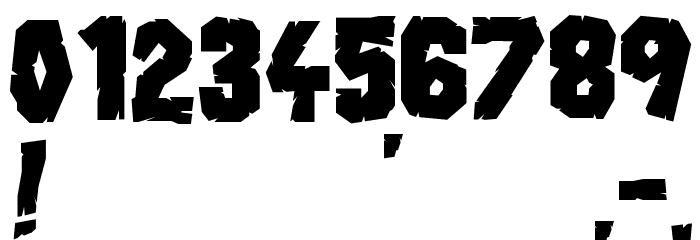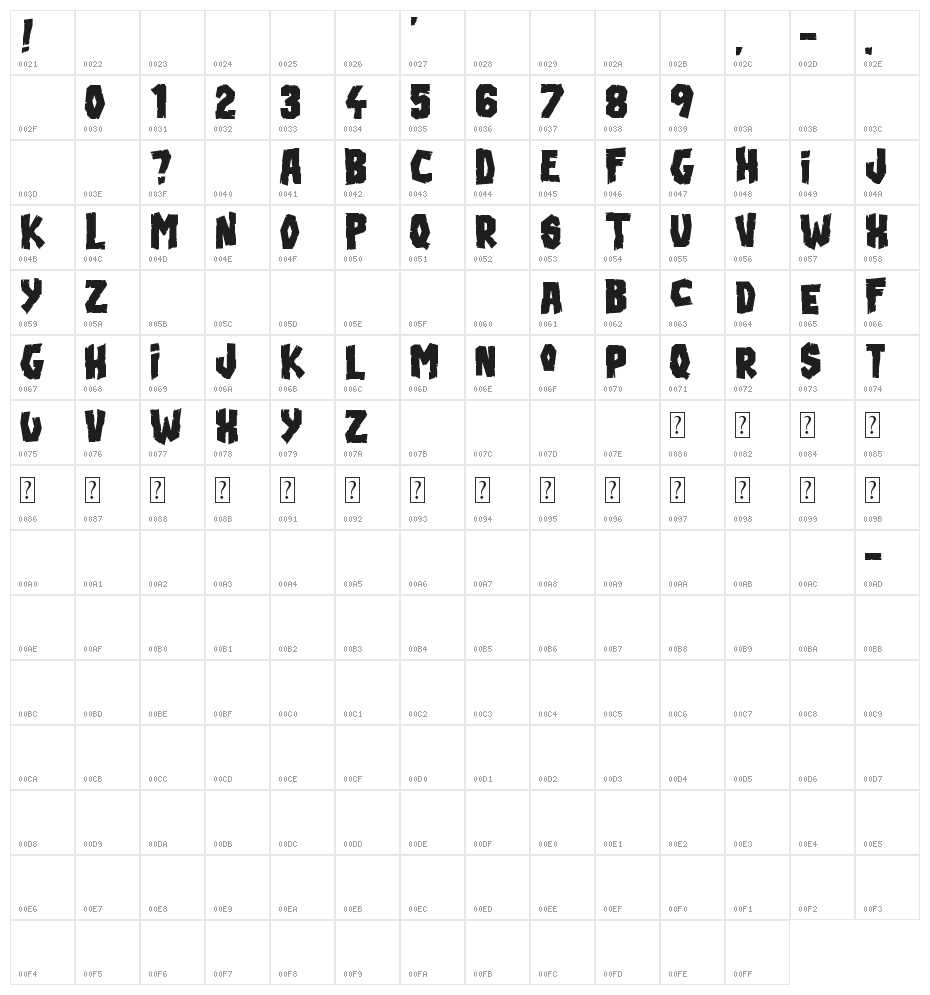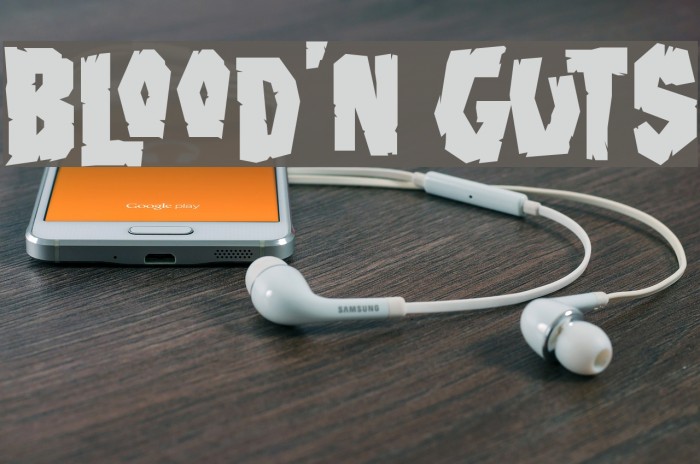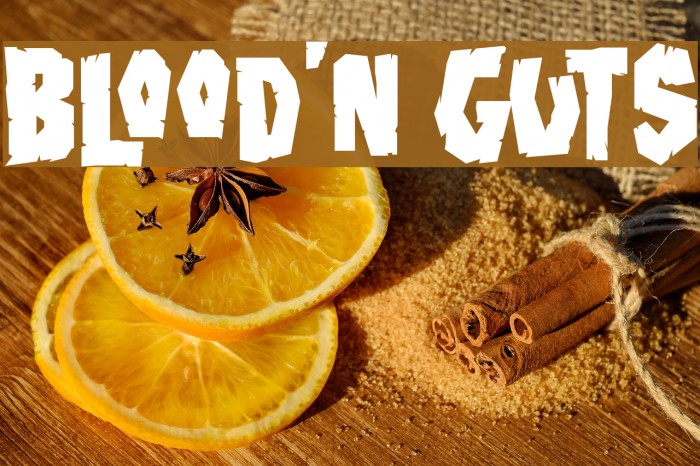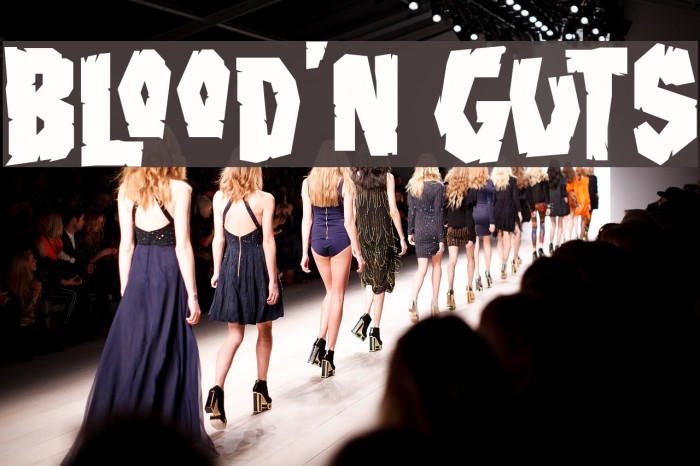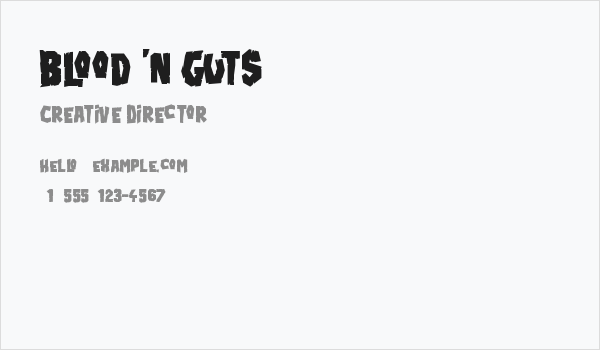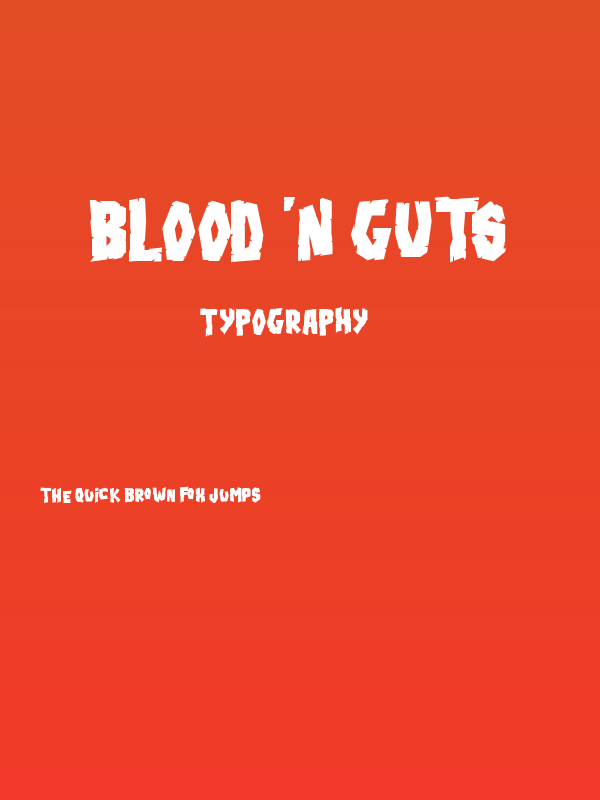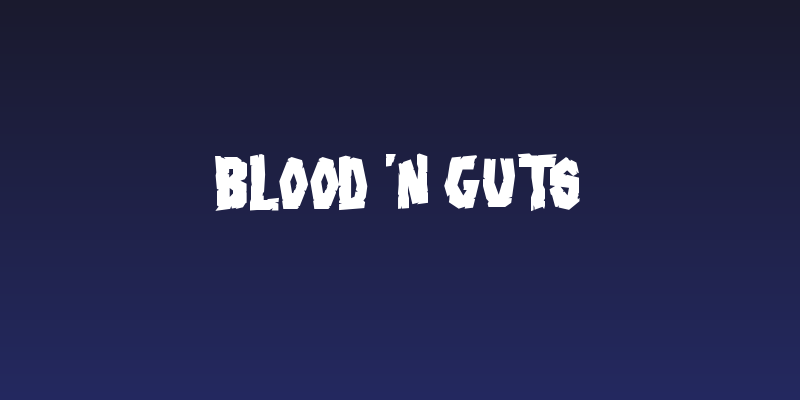
Blood'n Guts Font
Blood'n Guts Description
This font features a rugged, distressed appearance, reminiscent of torn paper or jagged edges. The characters are bold and heavily stylized, with irregular shapes that create a sense of chaos and intensity. Each letter and number is uniquely crafted, giving the font a hand-drawn, organic feel. The overall design is striking and attention-grabbing, making it ideal for projects that require a dramatic and edgy aesthetic. The uppercase and lowercase letters maintain a consistent style, while the numbers and special characters complement the overall theme with their bold, angular forms.
| Proposed Projects | Ideal for horror-themed posters, edgy album covers, or rebellious branding materials. |